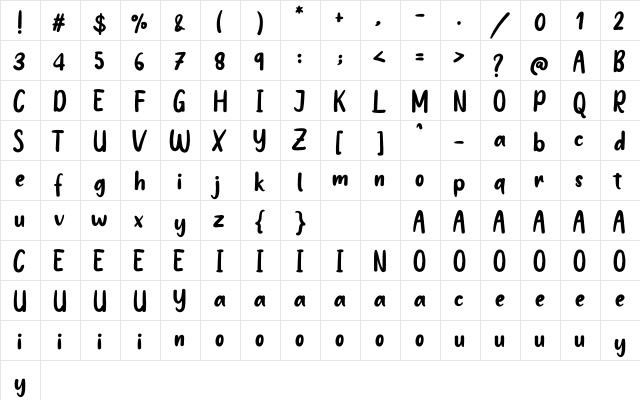
Florida Island Regular
Design Context for Florida Island Typeface
Florida Island is a composed and adaptable typeface that performs quietly and consistently across a wide range of design contexts.